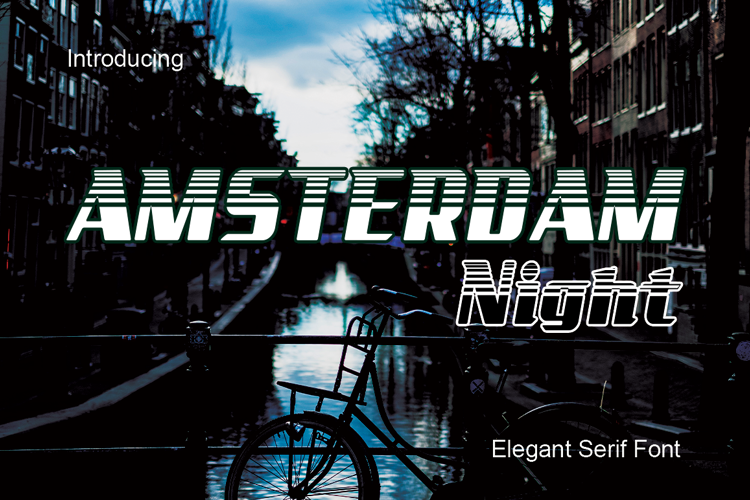
Amsterdam Night Font
Amsterdam Night is a cool and modern display font. A beautiful and professional typeface, this font is suitable for your various projects such as movie posters, headlines, Instagram posts, block letters, subheadings, logo designs, web design, and more.